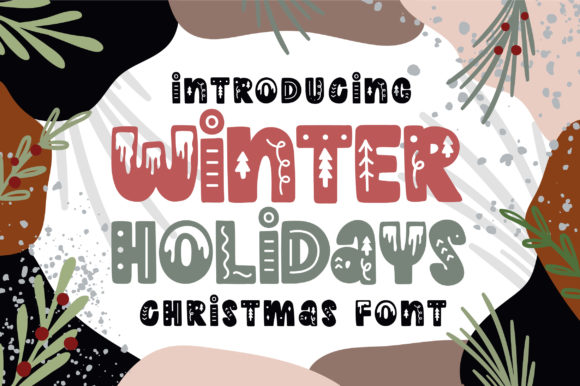
Winter Holidays Font: Adding Cheerful Typography to Web Design Projects
Using Winter Holidays in a Boutique E-Commerce Hero Section
I recently started working on a holiday-themed redesign for a small online shop that sells handmade ornaments and seasonal decor. The client wanted a festive, approachable vibe that felt both modern and nostalgic. I decided to test Winter Holidays, a cute Winter and Christmas-themed font, to see how it would perform in the hero section of the homepage. As a display font, it immediately stood out — not just for its holiday charm but for its clean lines and subtle whimsy that still felt professional enough for a digital storefront.
How Winter Holidays Performs in Web Typography Layouts
When I placed Winter Holidays over a soft snowflake-patterned background, the contrast was strong enough to maintain readability without being overwhelming. It’s important to remember that display fonts like Winter Holidays are best used for short bursts of text — headlines, callouts, and hero banners — rather than long-form content. On mobile, I adjusted the font size and spacing to ensure legibility, and the font scaled surprisingly well without losing its charm.
Pairing Winter Holidays with Clean Sans Serifs for Readability
One of the biggest concerns when using decorative fonts like Winter Holidays is maintaining readability and visual hierarchy. To balance the design, I paired it with a simple sans serif font for body copy and navigation. This contrast helped guide the eye naturally from the headline to the supporting content and call-to-action buttons. For web designers, this kind of font pairing is essential for creating a cohesive digital identity that feels intentional and brand-aligned.
Winter Holidays in Campaign Landing Pages and Seasonal Promotions
I also tested Winter Holidays in a promotional landing page for a limited-time holiday course sale. The goal was to evoke a sense of urgency and warmth simultaneously. Using the font in the headline and subheadings gave the page a distinct seasonal personality. I made sure to keep the font usage minimal — focusing on headers and short taglines — to avoid overwhelming users or slowing down the page load time. As a web designer, I always check how webfonts perform across devices, and Winter Holidays loaded quickly with no rendering issues.
Decorative Use Cases: When to Use Winter Holidays in Digital Branding
Winter Holidays shines brightest when used decoratively rather than functionally. It’s ideal for logo text, seasonal banners, and special edition landing pages. I used it in a digital brand kit for a client launching a holiday capsule collection. It added a personal, handcrafted feel to the brand assets without clashing with the existing typography system. For UI designers, this kind of seasonal customization can help a brand feel more timely and relevant without compromising on professionalism.
Winter Holidays for Creative Portfolios and Personal Websites
For a personal portfolio homepage I was building for a holiday-themed illustrator, I wanted the typography to reflect the client’s playful yet polished style. I used Winter Holidays in the hero title and section headers. It gave the site a unique personality that matched the client’s brand without feeling too gimmicky. The key was to use it sparingly — mostly for visual accents — and support it with a neutral, easy-to-read font for longer content sections.
How Winter Holidays Affects User Engagement and Visual Flow
One thing I noticed during usability testing was how Winter Holidays influenced user scanning behavior. The font’s decorative curves and festive style naturally drew attention, making it perfect for guiding users toward key messages or calls to action. However, overuse could cause visual fatigue or reduce readability on smaller screens. I found that using it in high-contrast areas — like a white background with a dark font or a light overlay on an image banner — helped maintain clarity and engagement.
Seasonal Social Media Graphics and Winter Holidays Font
While the main use case for Winter Holidays is in web design, I also tested it in social media graphics for the same holiday campaign. The font translated well to digital ads, Instagram stories, and holiday email headers. Its lightweight design and holiday flair made it a perfect fit for seasonal marketing materials. As a designer, being able to reuse a font across both web and graphic design projects adds value, especially when building a consistent brand experience.
Winter Holidays for Logo Design and Packaging Mockups
Although this article focuses on web use, I also explored using Winter Holidays in a digital packaging mockup for a holiday candle brand. It worked beautifully in logo design mockups and gift tag templates. The font’s rounded edges and soft serifs gave the brand a warm, approachable feel. If you're a creative business owner or a digital product creator, including this font in your design toolkit can help you craft more cohesive and seasonally relevant visuals across both print and digital formats.